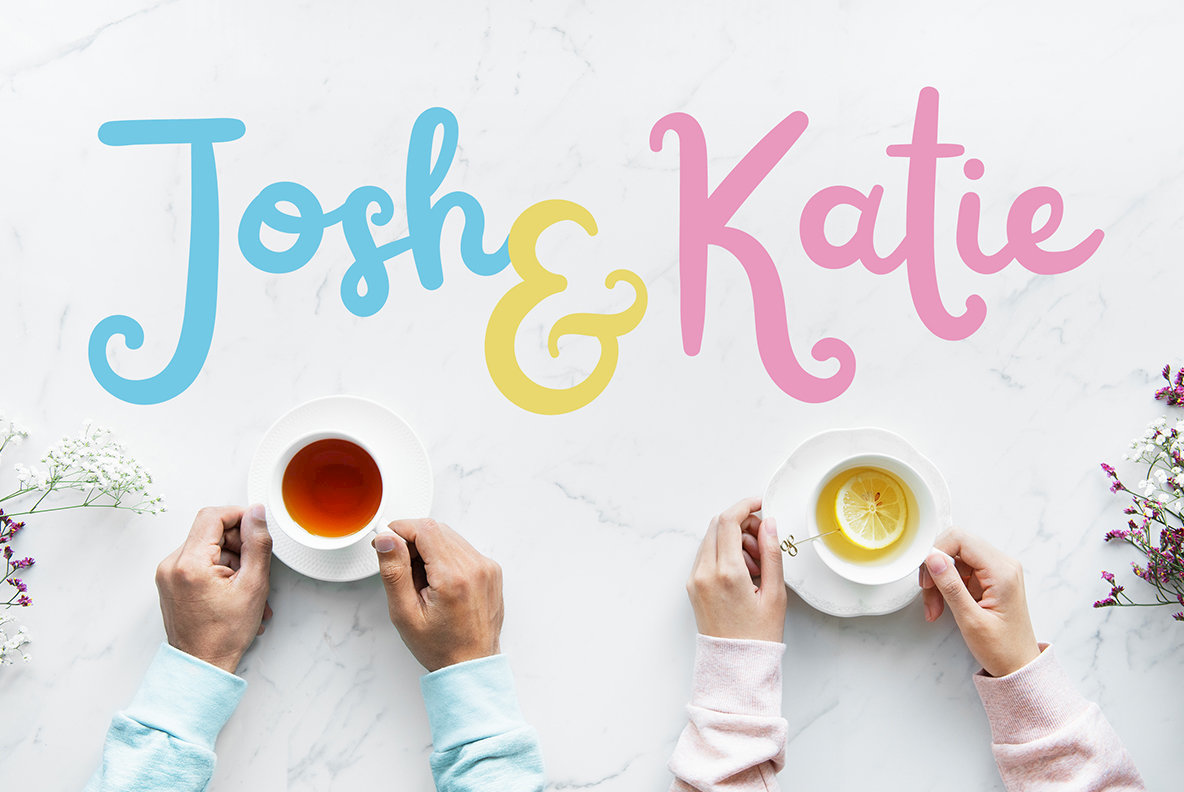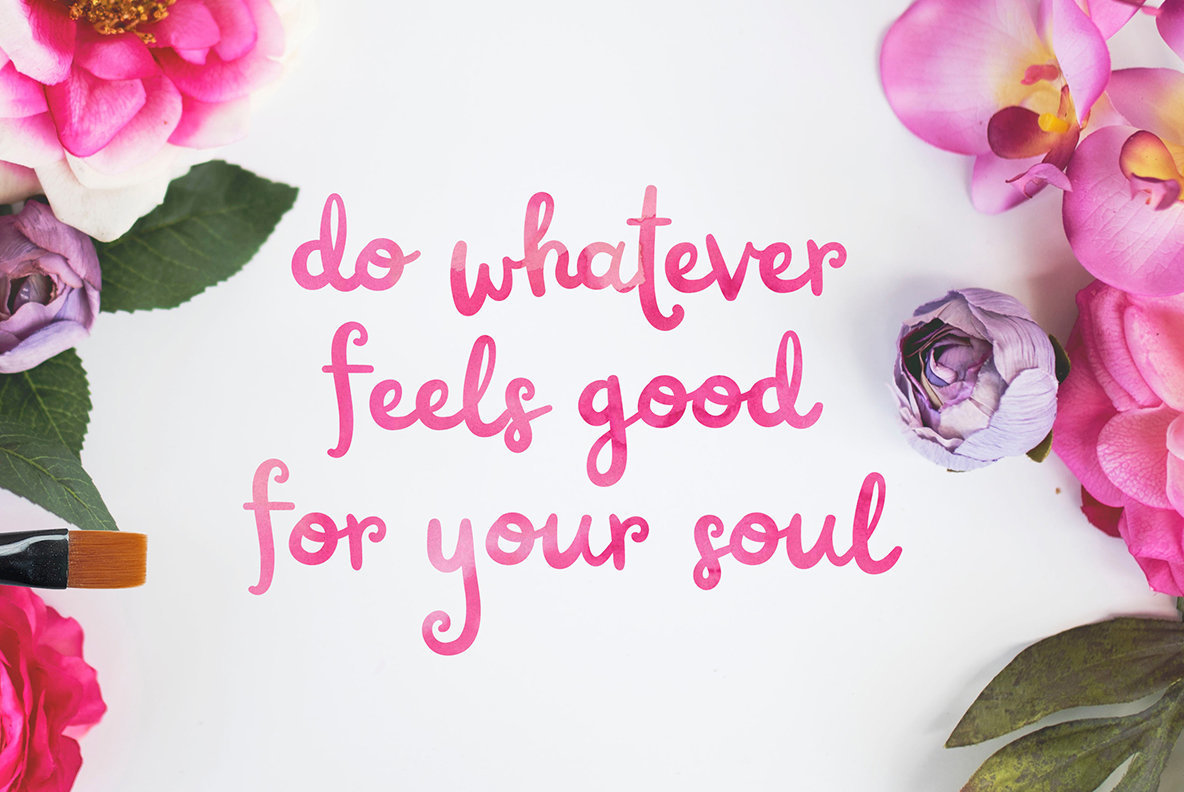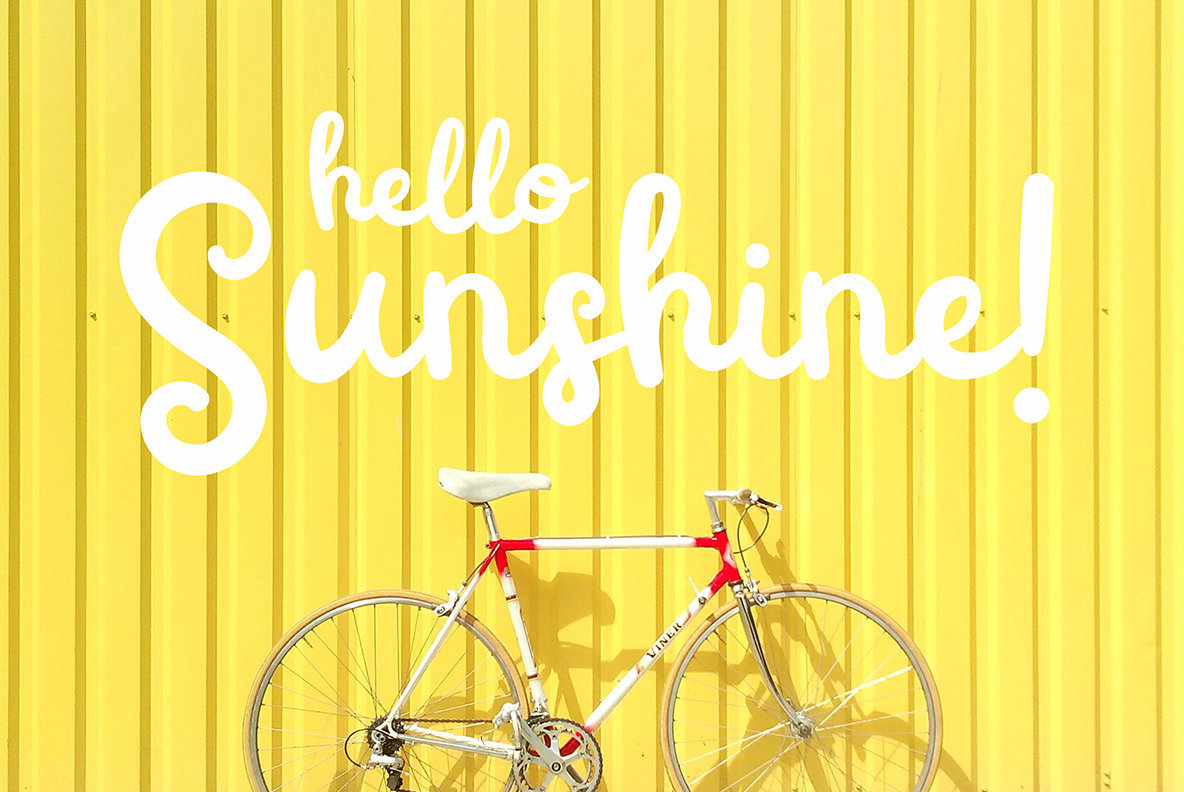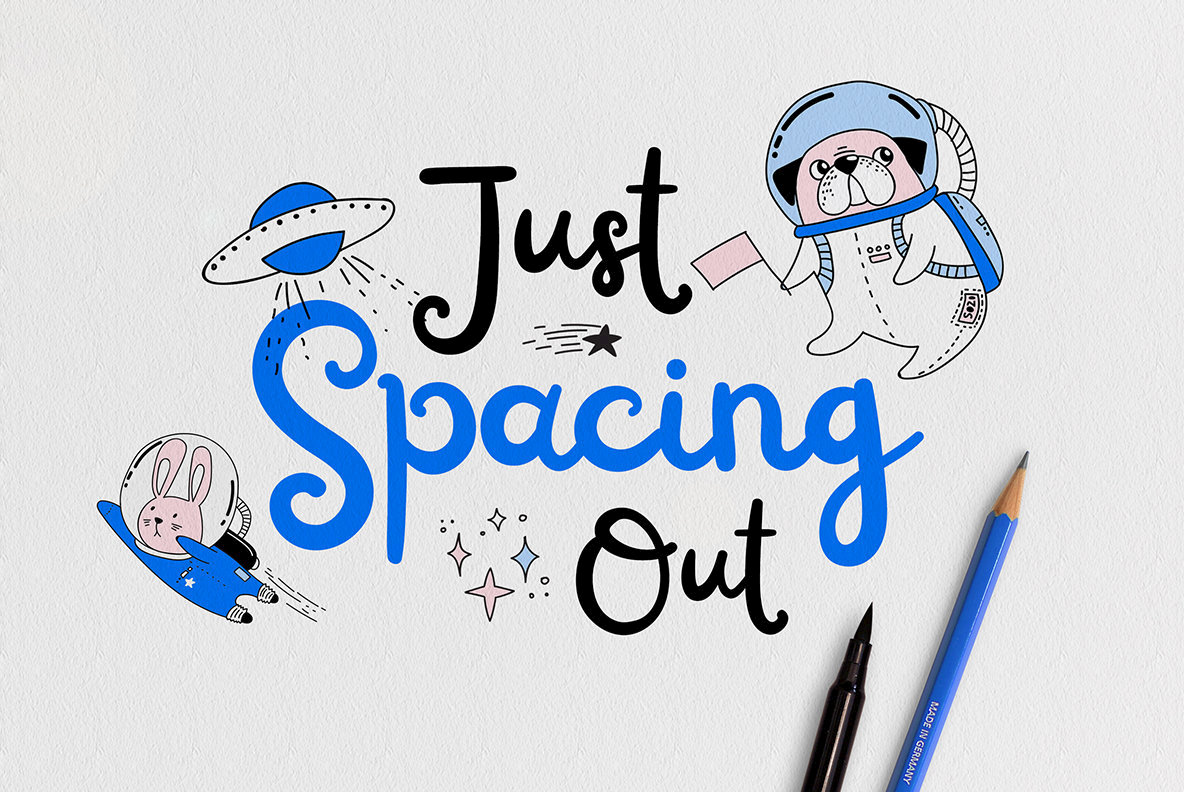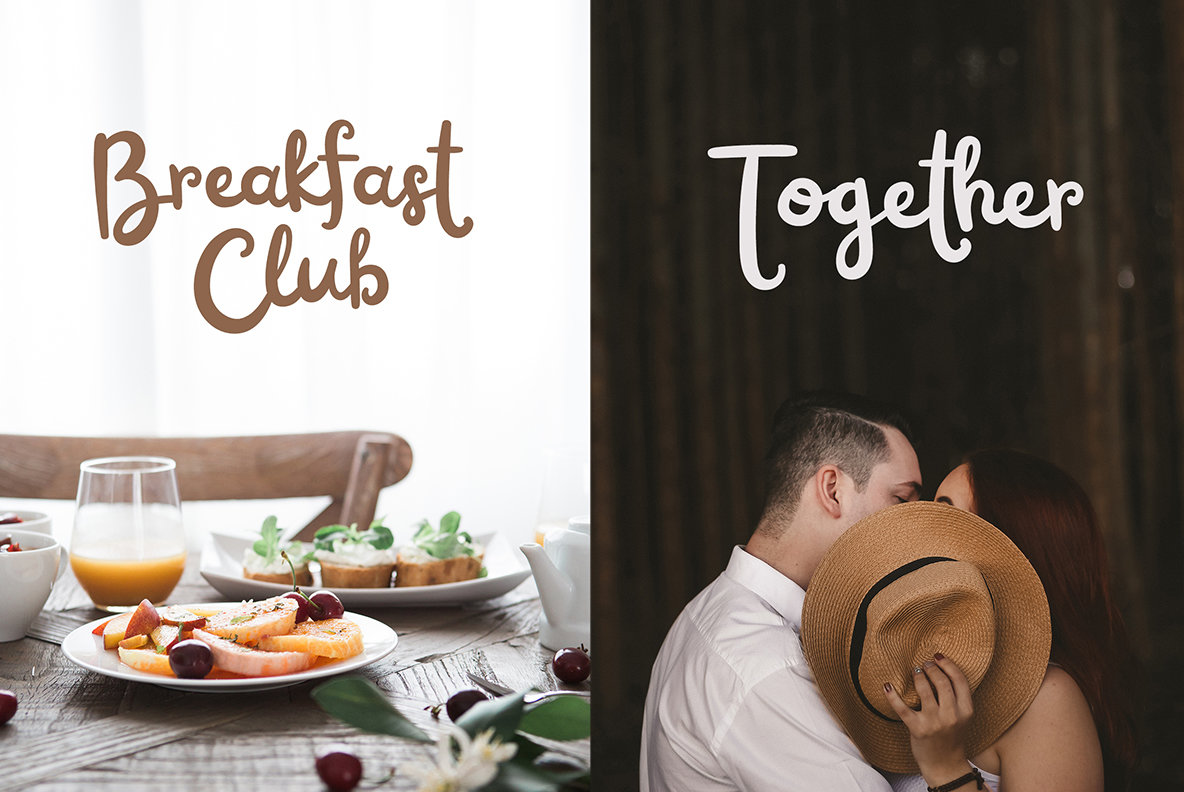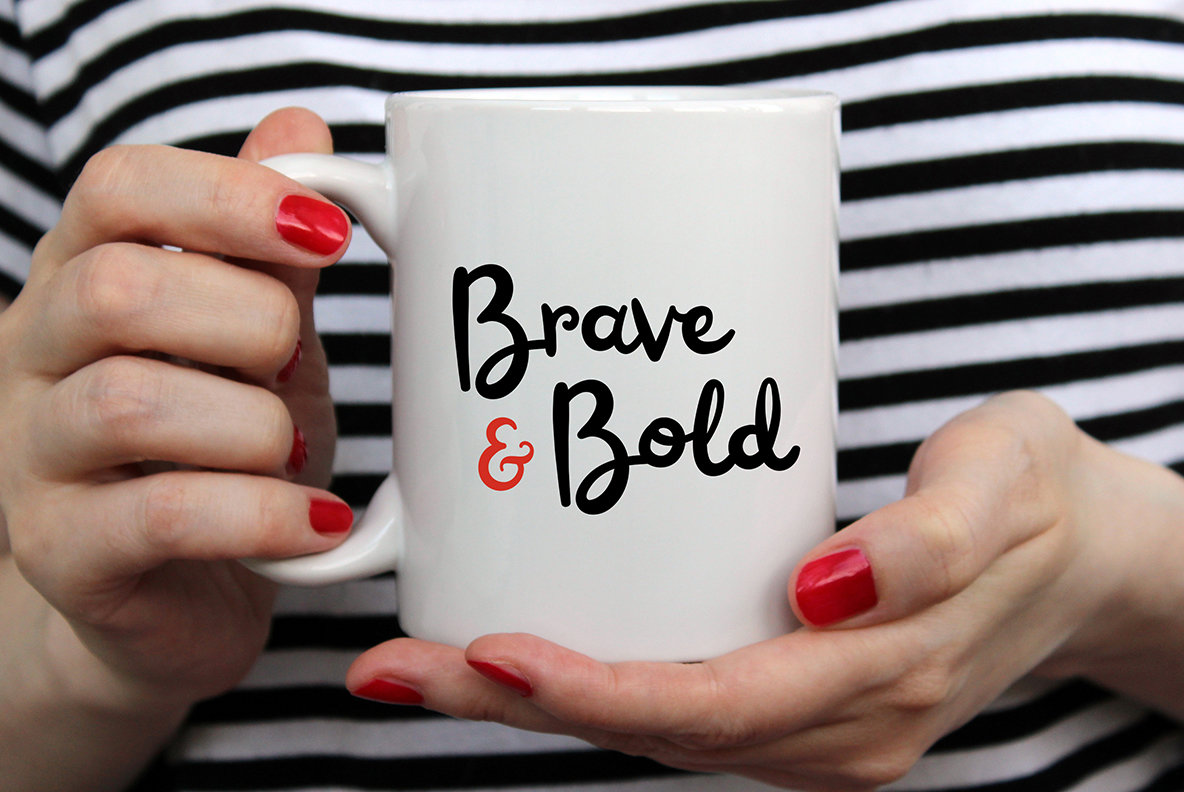
Railey 1
Railey is a lovely, modern handwritten font, perfect for any design & craft projects! Ideal for quotes, home decor, wedding invites, blog header, branding, t-shirts, posters & etc!